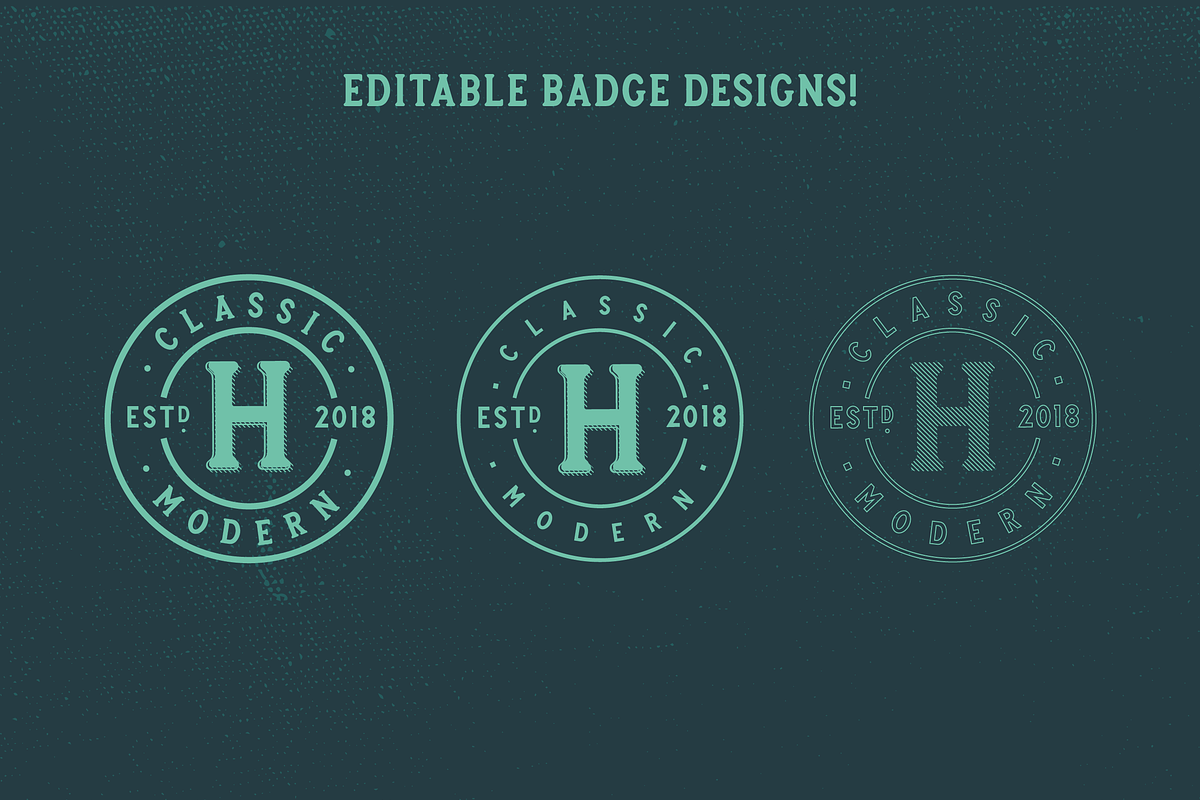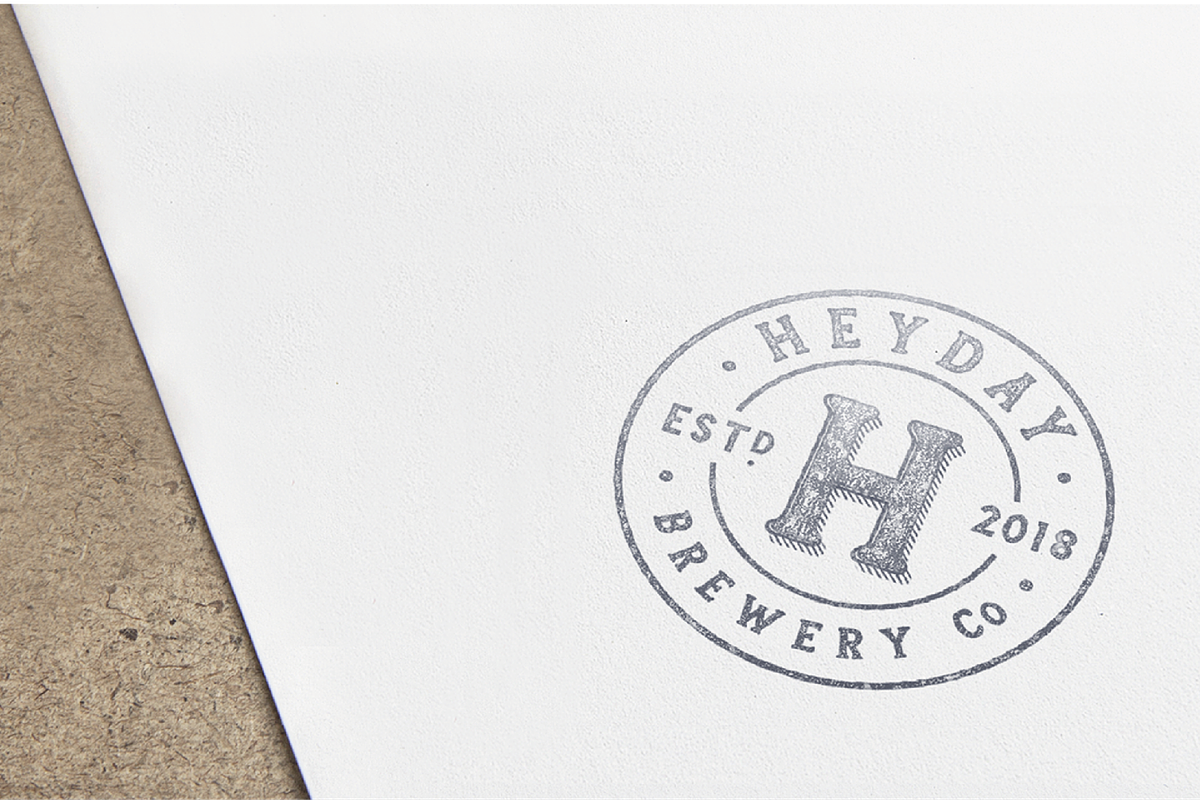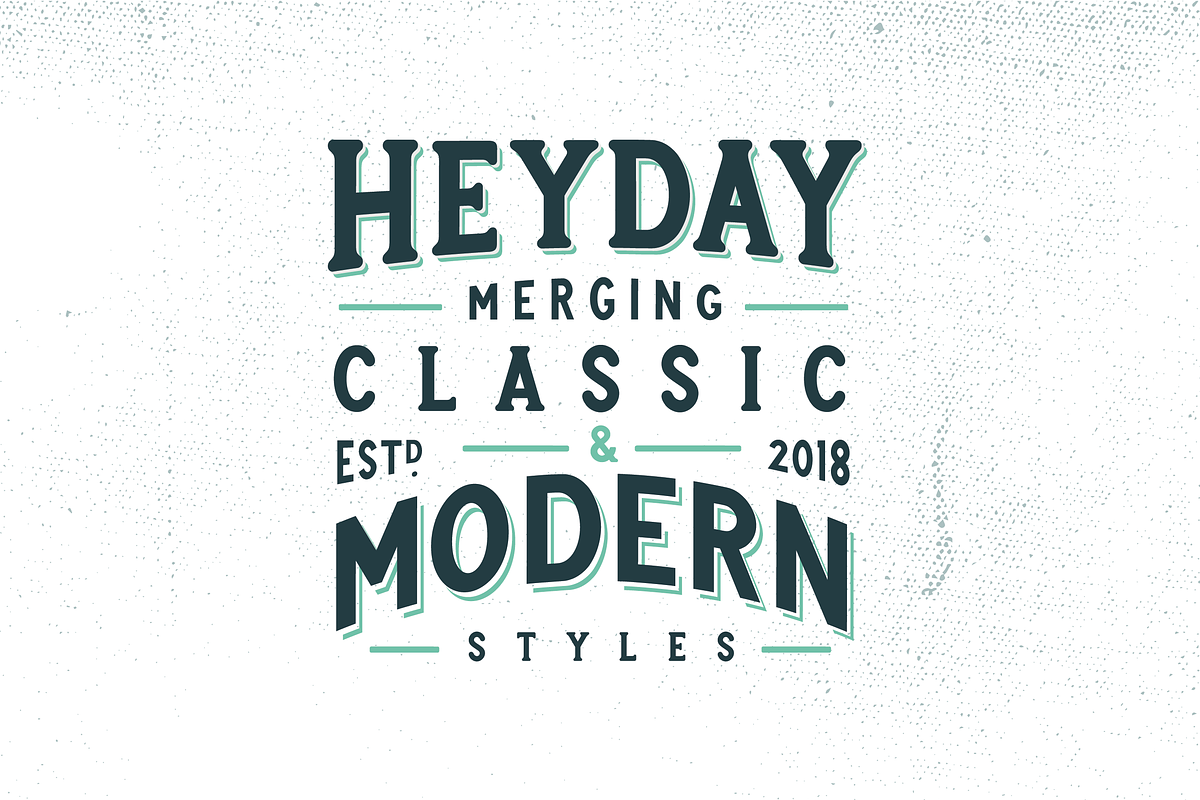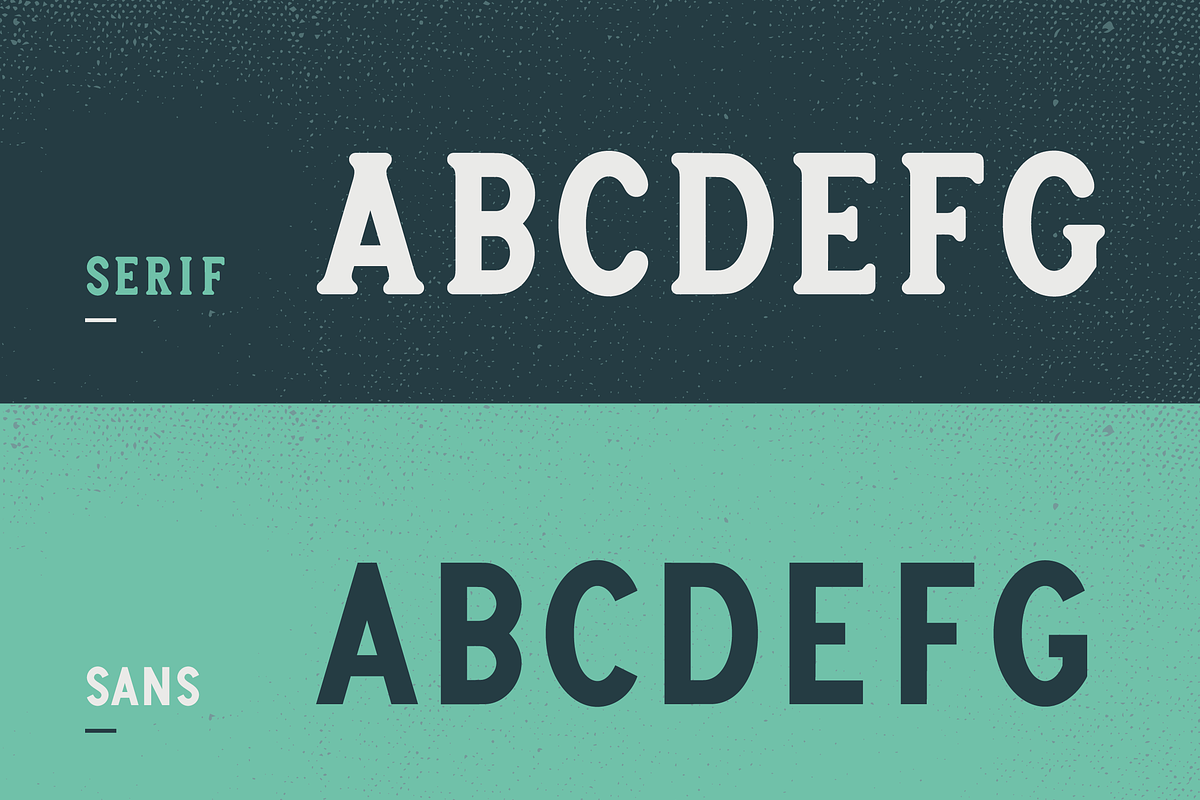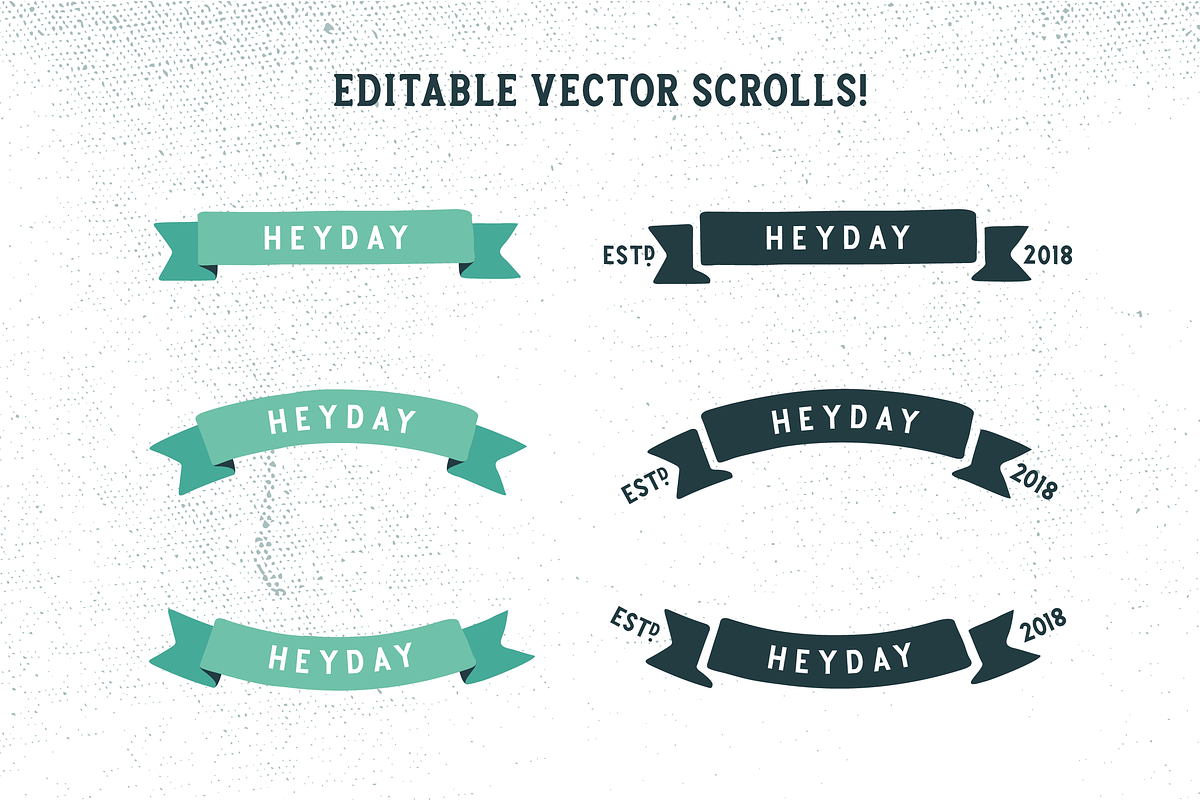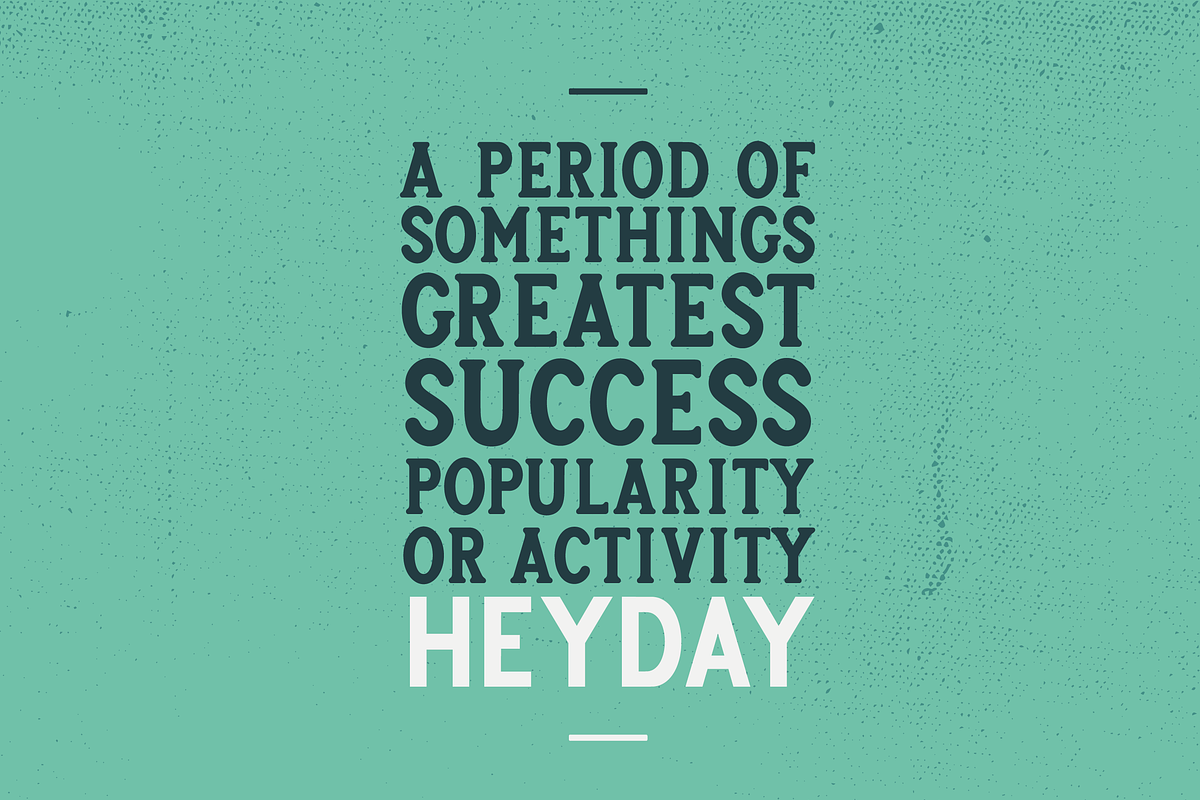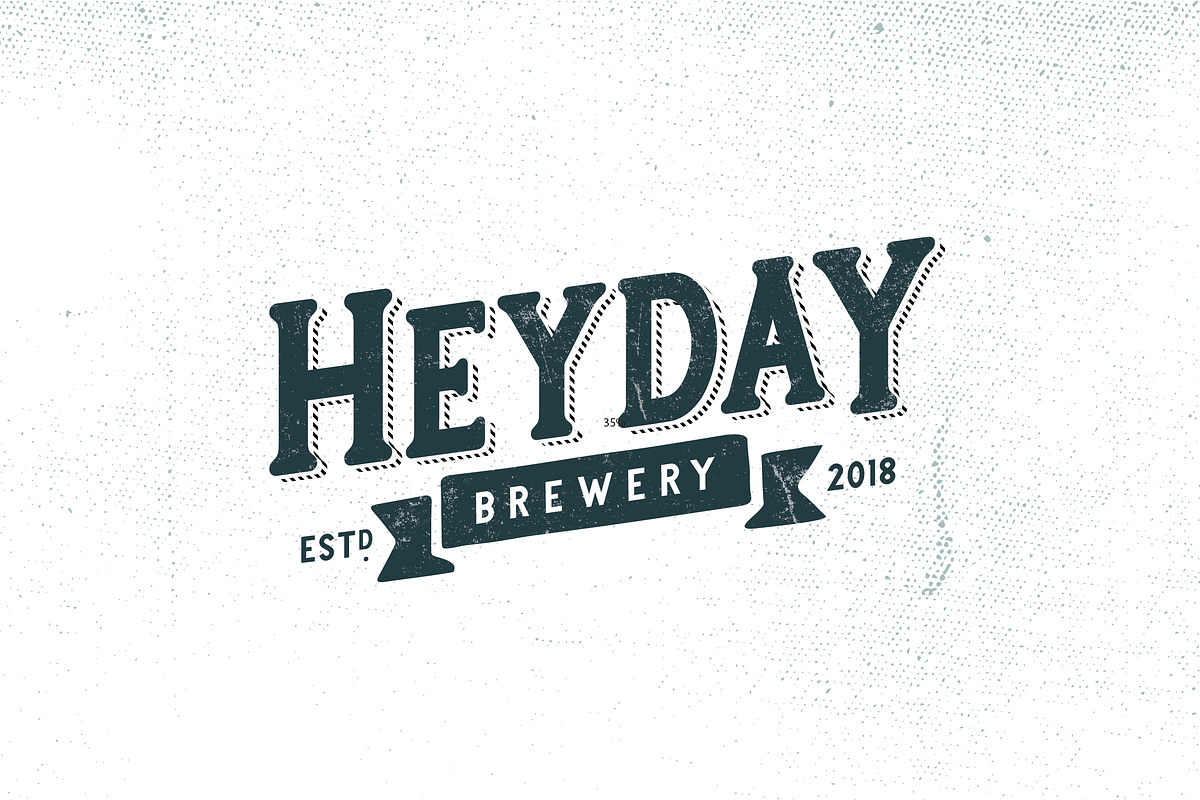
Heyday Font Family
Heyday was inspired by vintage style typography with the use of thick rounded serifs, while the shape of the letterform has a contemporary edge which brings it into the modern day. This combination of classic and modern creates a unique look and feel that enables the font to feel at home in any era.
The Heyday family consists of a serif and sans weight. Both are included along with editable badge and scroll vector designs!
- Heyday Sans
- Heyday Serif